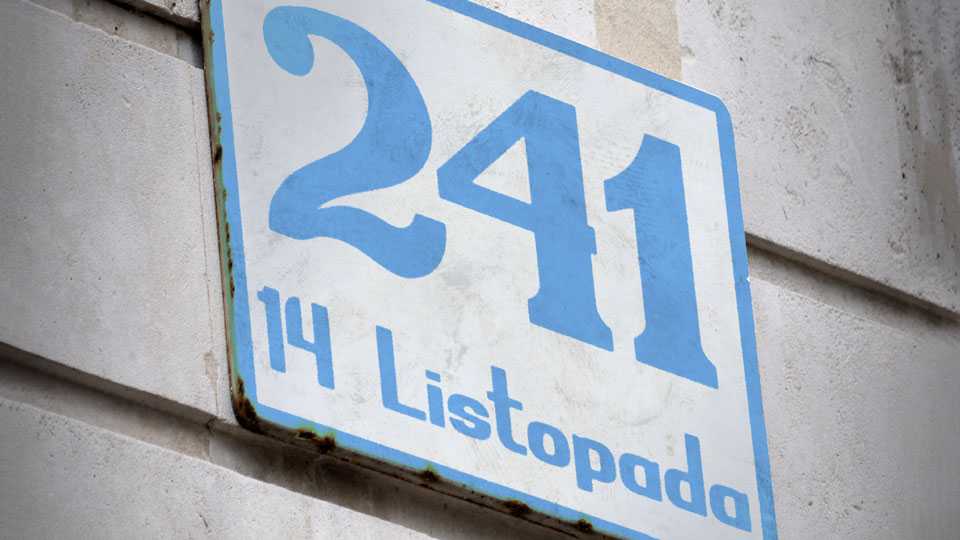
Download Wolkafont font, a project aims to archive the typeface used to produce unified house numbering plates distributed in the 1980s to residents of the Grębocice commune.
Designer: Bartosz “Hiden” Włodarczyk-Wawro